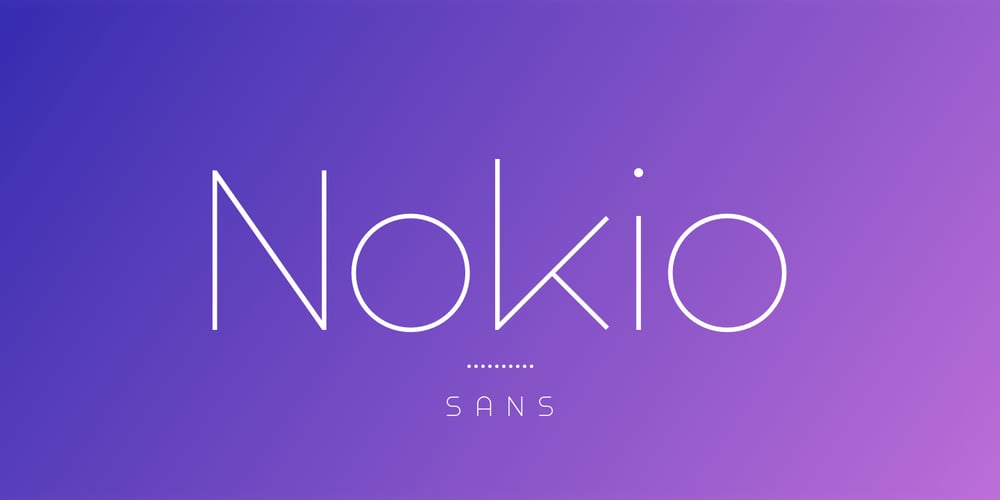
Nokio Sans Font Family was designed by Dan Jones and published by TypeUnion. Nokio Sans contains 20 styles and family package options. Nokio Sans is a clean, minimalist sans serif typeface designed by TypeUnion. The font incorporates clean lines and curves to produce a structured typeface with a subtle playfulness. Nokio Sans is made up of 5 weights + italics and also features an alternate font that uses more traditional character structures to offset the playful original. Nokio Sans is built for multiple uses, from digital applications such as Apps and Websites to logotypes and print applications.